What's the worst font ever? The second round of voting continues in Font Madness — our quest to crown the worst font ever. Take a look at these painful match-ups:
#16 Palace Script MT vs. #9 Willona
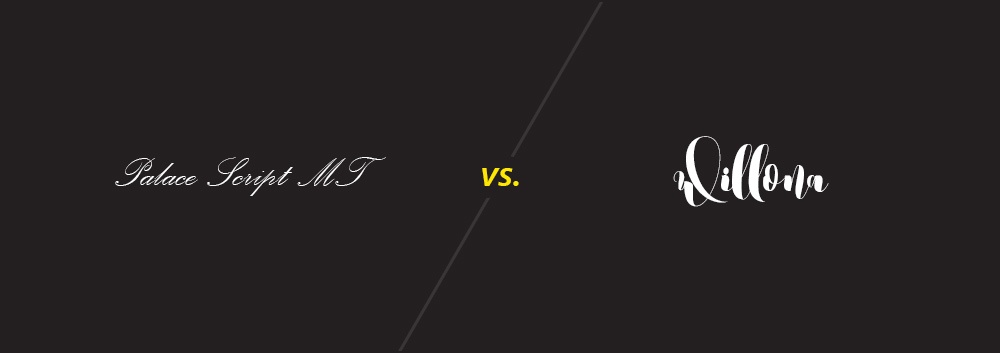
Why Palace Script MT Is The Worst
Nevermind the fact that a 44pt font appears as an 8pt font with this typeface, nothing cheapens up whatever faux-fancy masterpiece you're making faster than a few words in Palace Script MT.
Why Willona Is The Worst
Willona, you're taking the fall for the entire Millennial Wedding Script genre here. There's a new custom typeface popping up everyday that more or less looks exactly like this. You know the type. It's calligraphy with a dash of pumpkin spice latte.
#5 Mistral vs. #4 Chalkboard
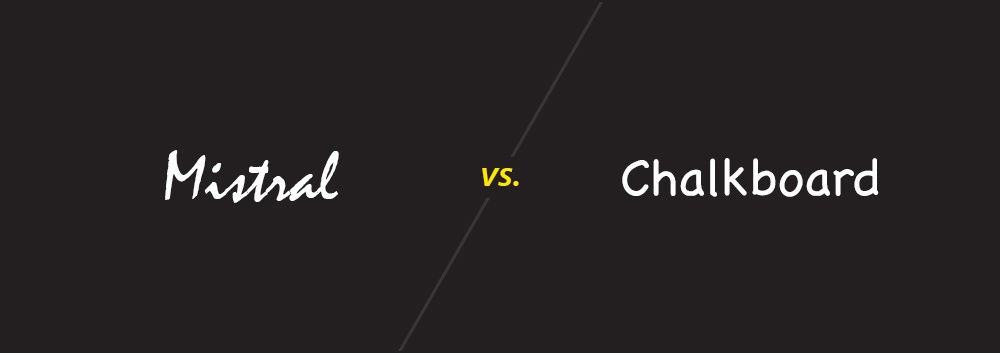
Why Mistral Is The Worst
Never has a cursive font so obviously been computer type. But that won't stop people from trying. You know those insurance company letters you get in the mail that put a few words in red on the top of the envelope to make you think it's important and actually handwritten? It's not real. It's Mistral.
Why Chalkboard Is The Worst
Wait...is that?
No, it is not Comic Sans. Someone actually spent the time to make a typeface that is allll most Comic Sans, but not quite. I think that makes it worse.
#11 Vivaldi Italic vs. #3 Rage Italic
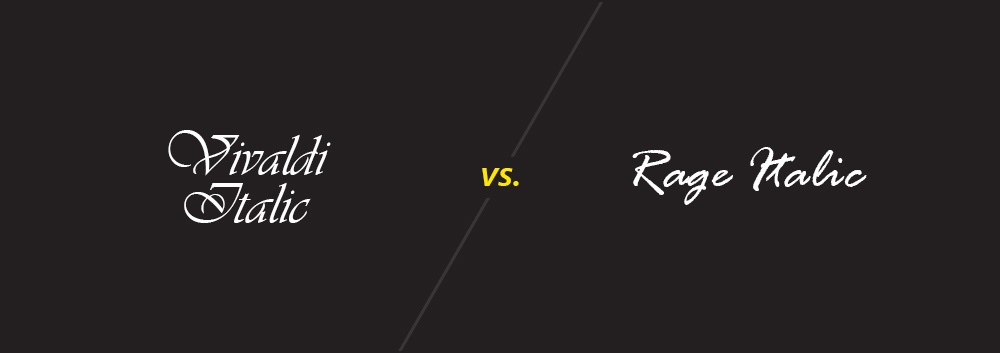
Why Vivaldi Italic Is The Worst
If you like illegible capital letters and unpleasantly distinct fake handwriting, Vivaldi Italic is your guy.
Why Rage Italic Is The Worst
I'll give Rage Italic this: it is appropriately named. It's been infuriating me for longer than I care to remember.
#7 Kristen ITC vs. #2 Lucida Calligraphy
Why Kristen ITC Is The Worst
Oh, come on. You're better off taking a physical crayon and just haphazardly scribbling over your monitor than you are producing any material written in Kristen ITC.
Why Lucida Calligraphy Is The Worst
Lucida Calligraphy is under-the-radar terrible. It hides behind public punching bags like Comic Sans hoping you won’t notice it’s egregious use on the entire PTA Bake Sale flyer. We see you now, you fraud. How do you sleep at night calling yourself calligraphy?
#1 Papyrus vs. #9 Giddy Up
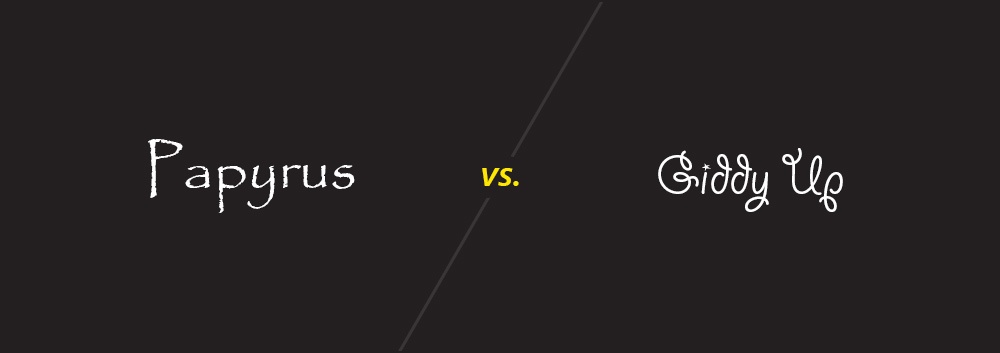
Why Papyrus Is The Worst
Nothing screams “hot garbage” louder than a product touted in Papyrus.
Just look at it. It looks like termites started to chew on someone’s oddly-spaced handwriting, but then the termites realized “geez, this is awful” and left it to rot. Papyrus is not some whimsical, vaguely-Mediterranean typeface. It’s a bucket of trash not even good enough for termites.
I’ll admit. I’ve never visited the Mediterranean. In my mind, it’s this picturesque slice of Earth where brilliant blue water hugs rocky shores dotted with colorful villas. But maybe I’m wrong. Maybe it’s a hellish landscape where everything is written in Papyrus.
Why Giddy Up Is The Worst
What are you supposed to be? Ropes? Little lasso-like curls? Giant pigtails? Do we really need one on every single character? Seems a bit much.
#5 Waker vs. #13 Ravie
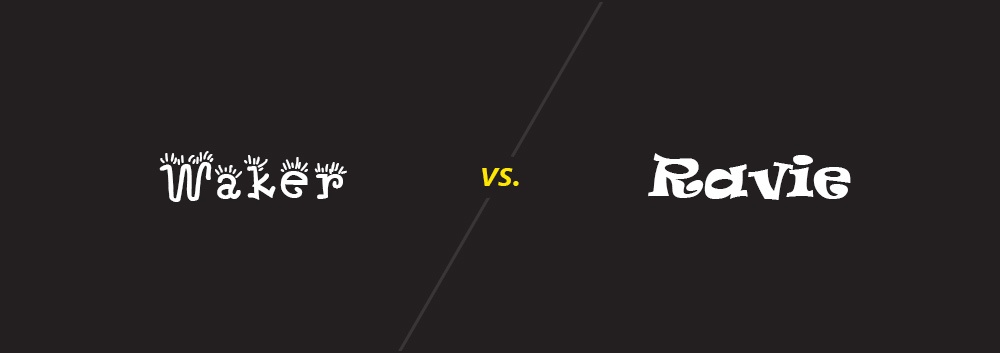
Why Waker Is The Worst
Wow. There is a lot to unpack here. This is a bad font even without the Chia Pet hair, but I'm guessing by the font name that those wildly unnecessary lines are supposed to be...sunbeams? I don't know. The actual answer doesn't matter. This is so awful.
Why Ravie Is The Worst
If Ravie could walk,this musicwould start playing every time.
#6 Bleeding Cowboys vs. #3 Jokerman
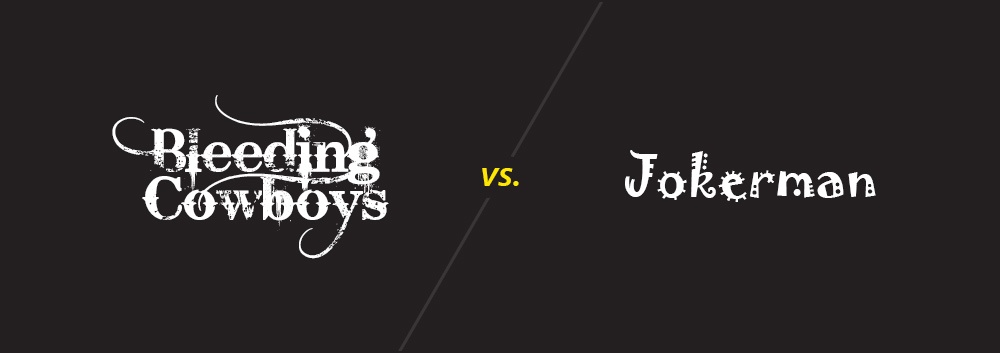
Why Bleeding Cowboys Is The Worst
Some fonts are boring. Others make your eyes bleed. If this font were a human, it would be a 23-year old woman from Ohio wearing cowboy boots at a Nickelback concert.
Why Jokerman Is The Worst
If I had a dollar for every time I saw a "crafty" business use this font in their signage or branding, I would have a lot of money not to spend at those businesses.
#7 Snap ITC vs. #2 Gigi
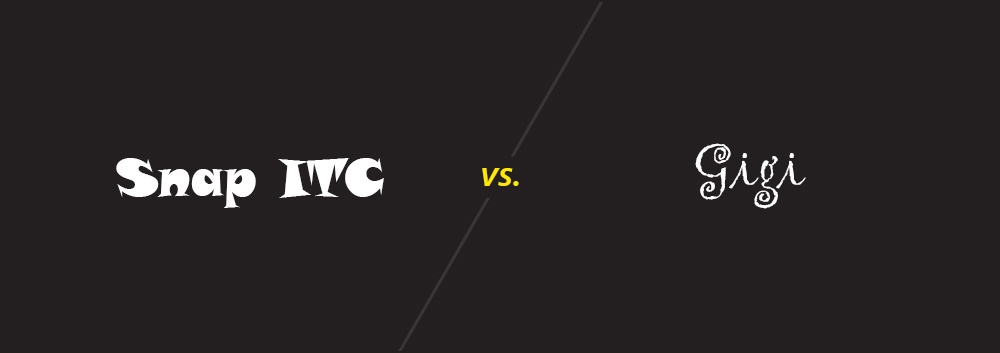
Why Snap ITC Is The Worst
Not to be outdone by it's chunky relative Ravie, Snap ITC comes bumbling onto the screen with absolutely zero respect for its appearance. It's like that neighbor who goes out to fetch the paper in his robe and boxers. Just pure disregard for anyone's visual well-being.
Why Gigi Is The Worst
Microsoftdescribes Gigi as a font with a "charming and fresh handwritten quality." Keep in mind Microsoft also produced Windows Vista.